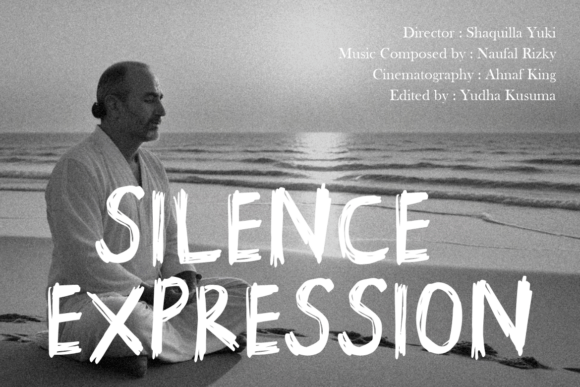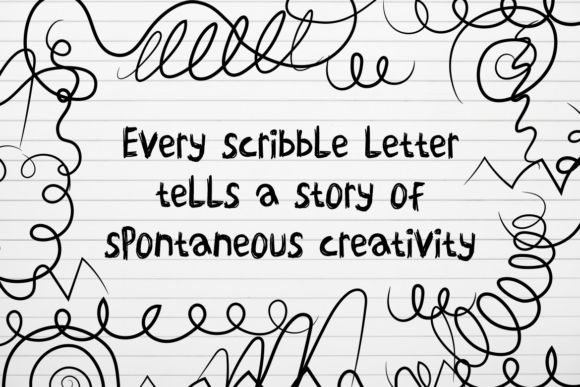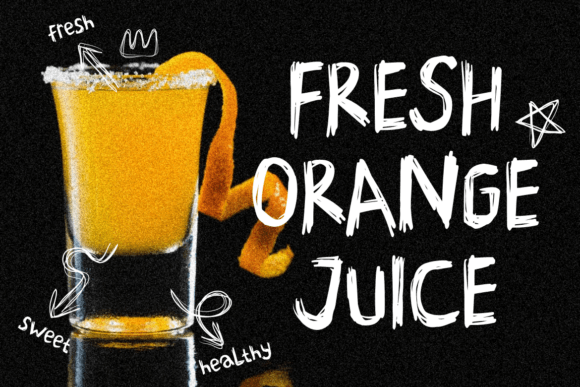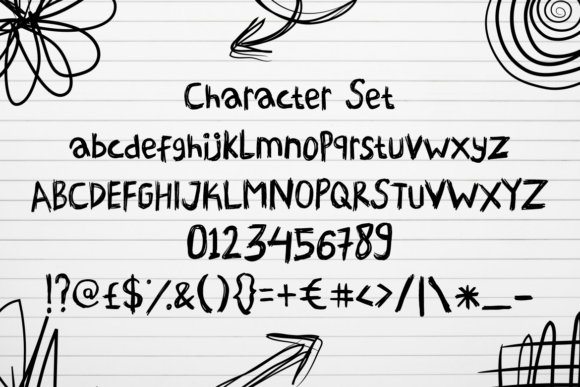
Introducing Effortline – The Playful Scribble Font That Brings Whimsy to Your Designs
Have you ever been in the middle of a design project, and suddenly, you just can’t seem to find the right font? I recall a particularly frustrating moment when I was working on a children’s event branding project. The client wanted something fun, playful, and reminiscent of a child’s scribbles. After hours of searching through font libraries, I stumbled upon Effortline – a delightful, hand-drawn typeface that instantly captured the essence of creativity and spontaneity I was looking for.
What Makes Effortline Special?
Effortline, or Effortline – Scribble Font, is not just another font; it’s a statement of fun and imagination. With its bold, hand-drawn characteristics, it embodies the joyful scribbles of a child’s artwork while maintaining the legibility needed for diverse design projects. Each letter appears as if it were quickly sketched with a brush, giving your text an authentic, handmade feel that is both engaging and delightful.
An Honest Review of Effortline
What I Love About Effortline ✨
- ✅ Playful and Vibrant: Effortline adds a touch of whimsy and childlike wonder to any design project.
- ✅ Highly Legible: Despite its hand-drawn appearance, Effortline remains clear and readable, making it suitable for a wide range of applications.
- ✅ Versatile: Perfect for logos, branding materials, invitation cards, posters, and more.
- ✅ Authentic Handmade Feel: The font’s brush-sketch appearance gives any text a unique, engaging quality.
- ⚠️ Limited Formality: Due to its playful nature, Effortline may not be the best choice for projects requiring a formal or professional tone.
- ⚠️ Overuse: Using Effortline excessively can make a design look cluttered or overly playful.
The Backstory of Effortline
Effortline was inspired by the simple yet expressive drawings of children. The designer aimed to capture the raw creativity and spontaneity of childhood scribbles in a font that could be used across various design projects. The result is a typeface that feels both playful and approachable, perfect for designers looking to infuse their work with a sense of fun and imagination.
Q: What makes Effortline unique?
A: Effortline is unique due to its bold, hand-drawn characteristics that mimic the joyful scribbles of a child’s artwork, providing an authentic handmade feel.
Q: Is Effortline suitable for professional projects?
A: While Effortline is playful, it maintains a level of legibility that makes it suitable for professional projects, especially those requiring a touch of whimsy.
Q: Does Effortline support OpenType features?
A: Yes, Effortline supports OpenType features, allowing you to access different stylistic alternates and glyphs for a more customized look.
| Font Name | Effortline Font |